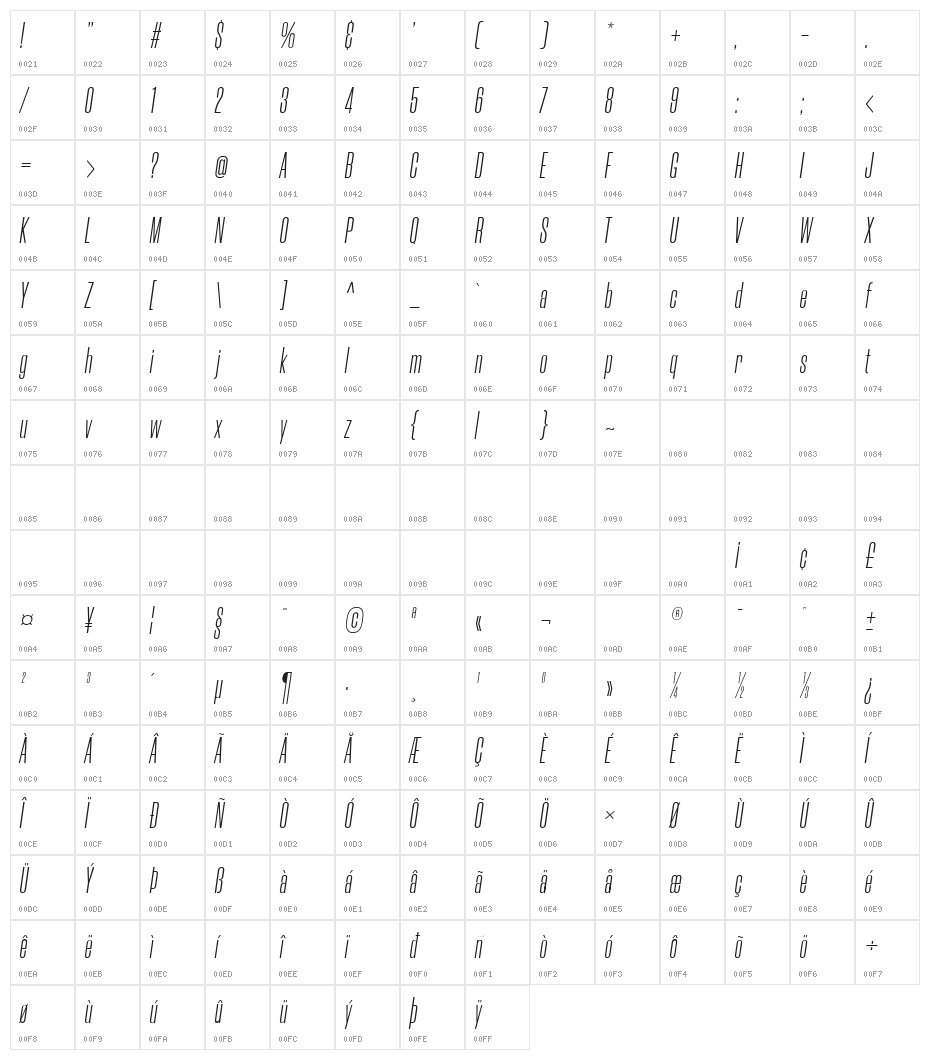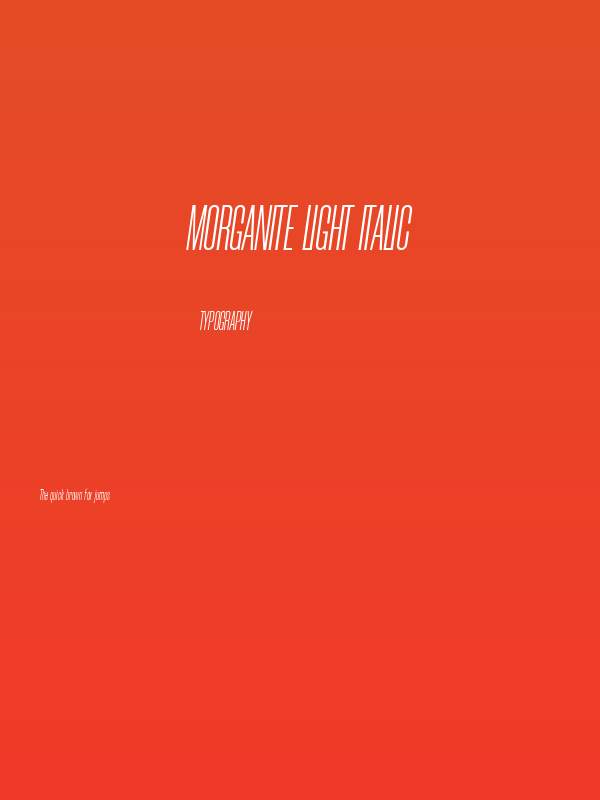
Morganite Light Italic Font
Morganite Light Italic Description
This font exhibits a sleek and modern aesthetic with its elongated and narrow letterforms. The italic style adds a dynamic and forward-leaning appearance, enhancing its contemporary feel. The characters are uniformly spaced, contributing to a clean and organized look. The font's light weight ensures a delicate and refined presentation, making it suitable for elegant and sophisticated designs. The high contrast between the thin and slightly thicker strokes adds a touch of elegance, while maintaining readability. Its overall style is both stylish and versatile, making it ideal for a variety of design applications.